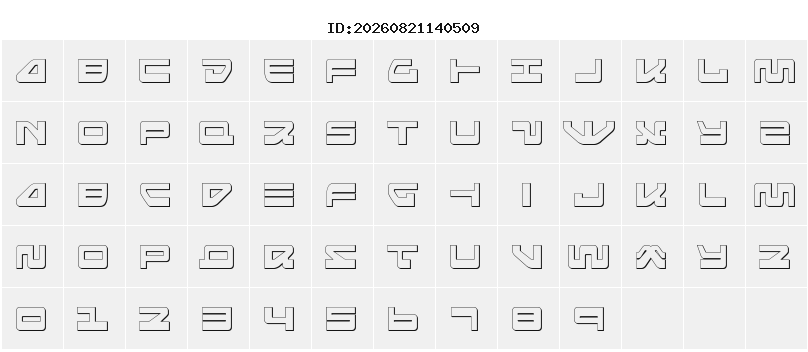
• Font Name: Searider Falcon 3D
About Searider Falcon 3D.ttf
Searider Falcon 3D.ttf is a modern, elegant sans-serif font designed for ultimate readability and visual harmony. Perfect for branding, headlines, web design, and print materials.